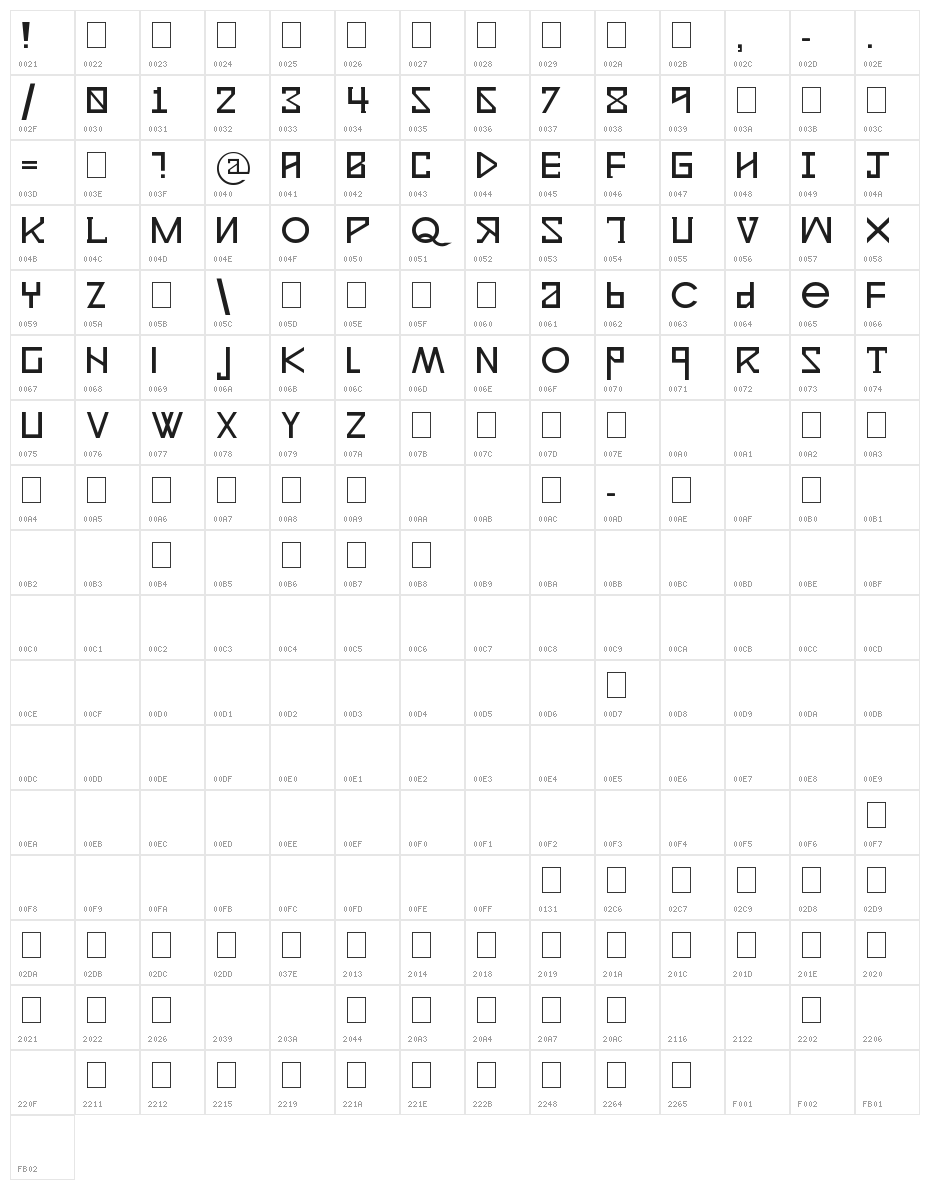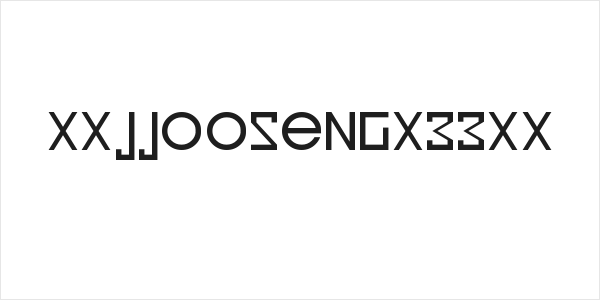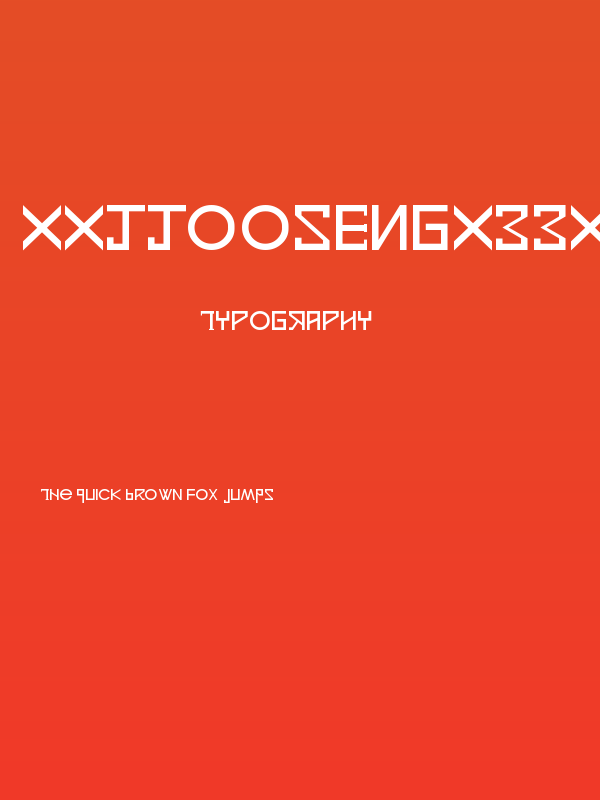
xxjjoosengx33xx Font
xxjjoosengx33xx Description
This font features a bold and geometric design with a futuristic flair. The characters are constructed with sharp angles and straight lines, giving it a modern and edgy appearance. The uppercase letters are particularly striking, with unique shapes that make each character stand out. The lowercase letters maintain the same geometric style, ensuring consistency across the font. Numbers and special characters are designed with the same attention to detail, making them easily recognizable and visually appealing. The overall style is both innovative and versatile, suitable for a variety of creative projects.
| Proposed Projects | Ideal for technology branding, sci-fi posters, video game titles, and modern art projects. |